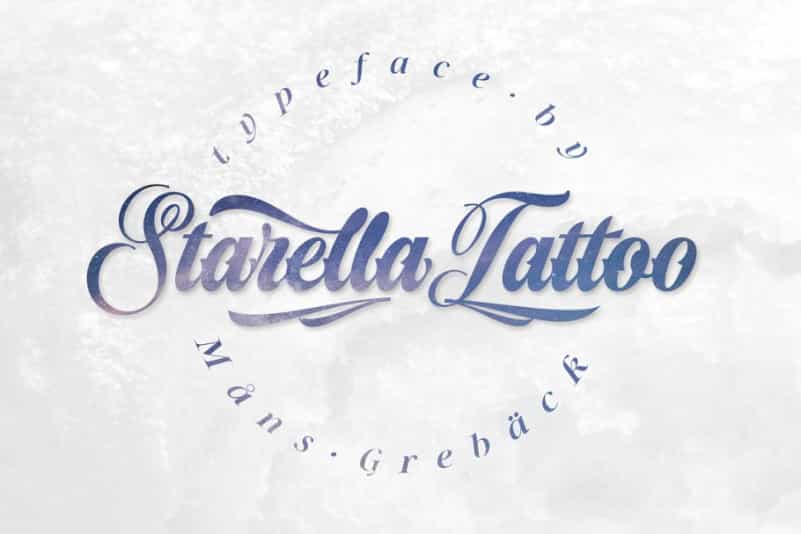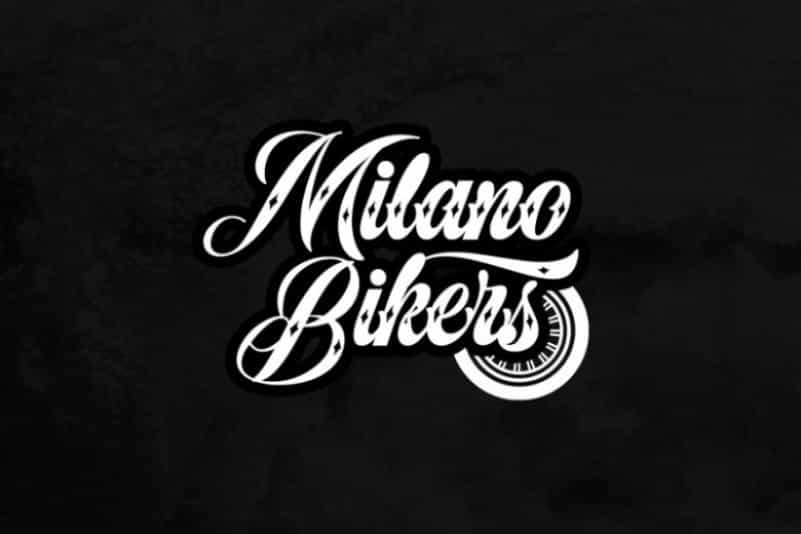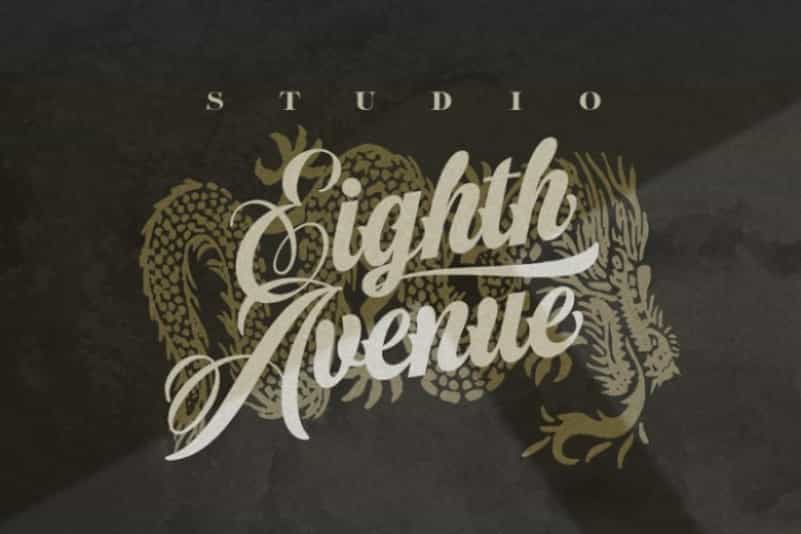
Introducing Starella Tattoo Font. This is a map and it is created and posted by Mans Greback. It is a professional font with smooth lines in each lettering that symbolizes the combination of elegance and rebelliousness. The font is available in a standard version and a version embellished with diamonds in every letter.